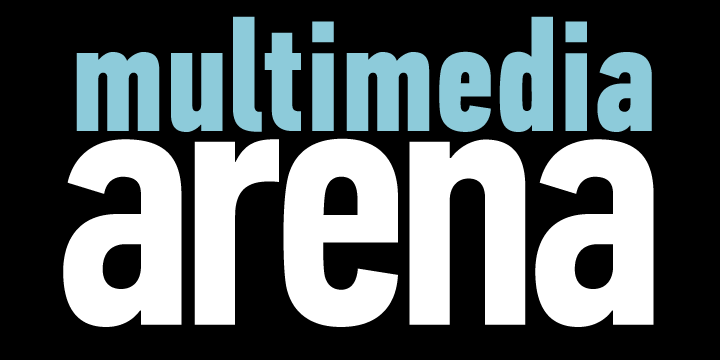
This is a new scaled-down version of the popular DIN Text Pro series. It is a more economic version which supports all European languages based on the Latin script. The DIN Text Std families have retained several of the original version’s opentype features and characteristics.
Each family comes with 756 glyphs per font including small caps and 15 flexible weights.
The DIN Text Std series, has lowercase ascenders that are higher than the capitals, varying letter proportions and italics that are not a mechanically-obliqued version of the regular weights.
The letterforms divert from the stiff geometric structure and introduce instead elements which are familiar, softer and easier to read. All 3 superfamilies including Condensed and Compressed share the same attributes.